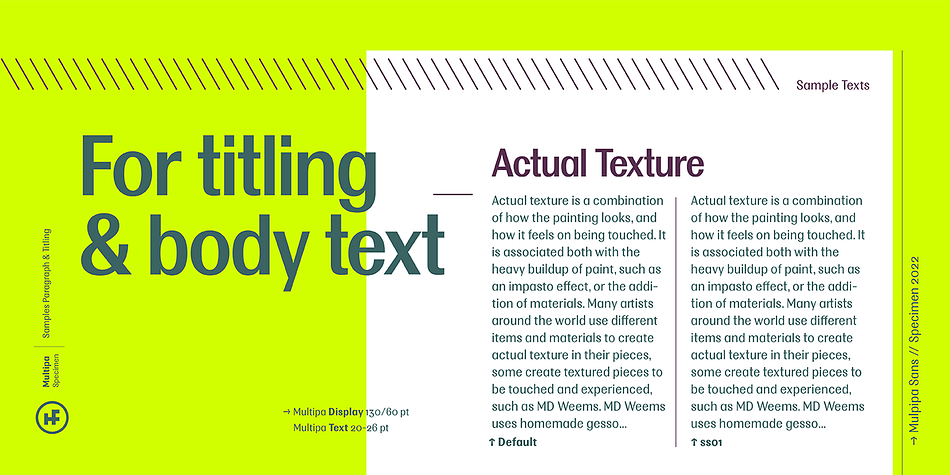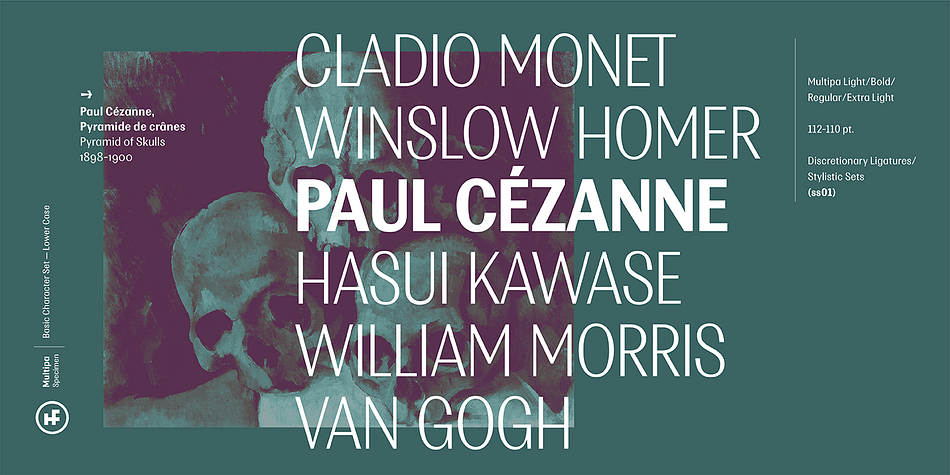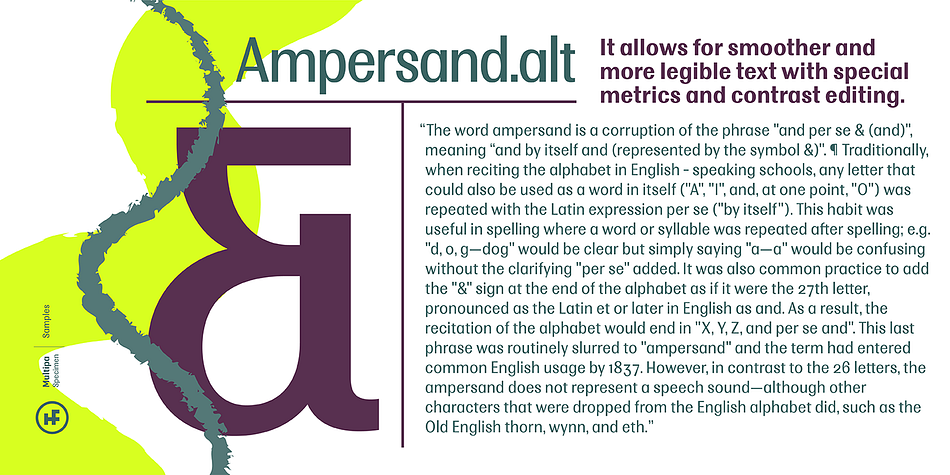
Multipa
Designed by Oğuzhan Cengiz, Multipa is a display sans and sans serif font family. This typeface has twenty-two styles and was published by Hurufatfont Type Foundry.
Multipa takes inspiration from old-style grotesque fonts and reinterprets them for the present. Its contrast structure distinguishes it from other sans serif fonts.
Thanks to style sets, letters like t, b, d, k, l are synchronized with capitalization height. It allows you to create powerful typographic designs with body text and heading styles. It is equipped with rich opentype features, style sets and ligatures for professional typography designs.